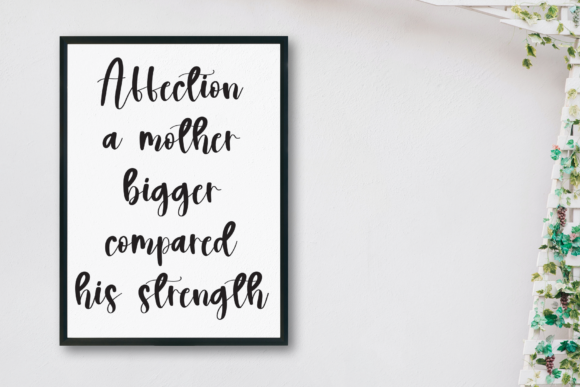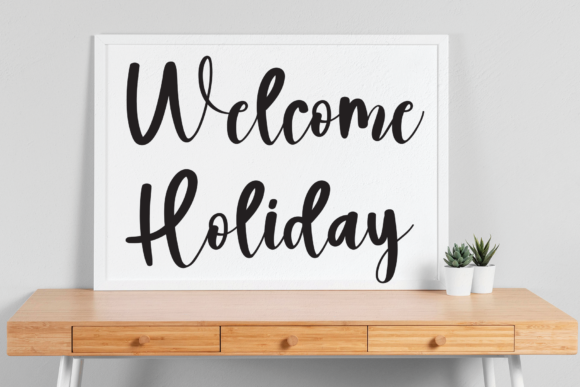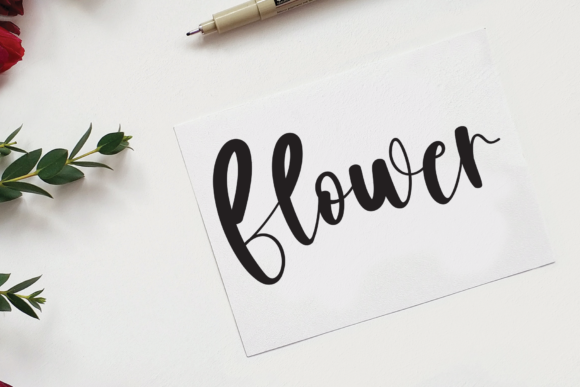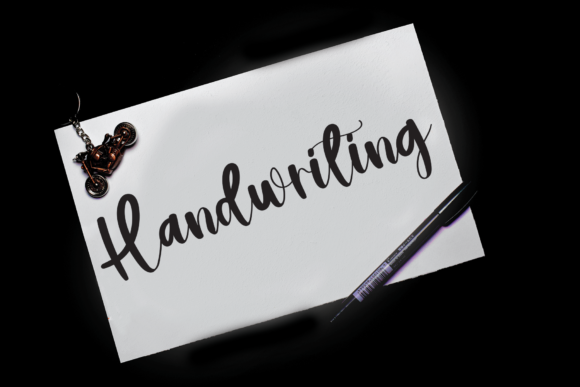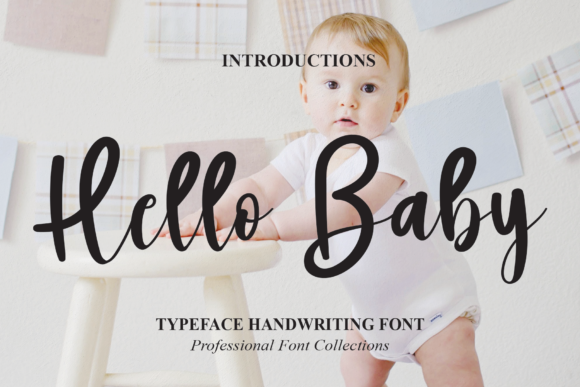
Hello Baby Font: The Perfect Choice for Elegant Designs
Hello Baby Font is a unique and elegant handwritten font that has captured the hearts of designers and crafters alike. Its beautiful, flowing script makes it an ideal choice for a variety of designs requiring a personalized style, such as wedding invitations, thank you cards, weddings, greeting cards, logos, and more.
What Makes Hello Baby Font So Special?
Hello Baby Font stands out from other fonts due to its distinctive handwritten style, which exudes elegance and sophistication. The font’s unique characteristics make it perfect for designs that require a personal touch, such as:
- Wedding invitations: Add a touch of romance and whimsy to your wedding invitations with Hello Baby Font.
- Thank you cards: Express your gratitude in style with this beautiful font.
- Greeting cards: Create stunning greeting cards for special occasions like birthdays, anniversaries, and holidays.
- Logos: Use Hello Baby Font to create a unique and memorable logo for your business or brand.
Key Features of Hello Baby Font
Hello Baby Font comes with a range of features that make it a versatile and practical choice for designers and crafters. Some of its key features include:
- Handwritten style: The font’s handwritten style gives it a personal and elegant feel.
- Unique characters: Hello Baby Font includes a range of unique characters, such as swashes and ligatures, to add a touch of whimsy to your designs.
- Multilingual support: The font supports multiple languages, making it a great choice for designers working with international clients.
Tips for Using Hello Baby Font
To get the most out of Hello Baby Font, here are some tips to keep in mind:
- Pair it with other fonts: Combine Hello Baby Font with other fonts to create a unique and visually appealing design.
- Experiment with colors: Try out different colors and textures to add depth and interest to your designs.
- Use it sparingly: Use Hello Baby Font sparingly to create a sense of elegance and sophistication.
- Play with swashes: Take advantage of the font’s swashes and ligatures to add a touch of whimsy to your designs.
Why Designers and Crafters Love Hello Baby Font
Hello Baby Font has become a favorite among designers and crafters due to its versatility, elegance, and ease of use. Here are some reasons why:
- Time-saving: The font’s elegant style saves designers and crafters time and effort, as it eliminates the need to create custom lettering from scratch.
- Professional results: Hello Baby Font produces professional-looking results, making it perfect for commercial and personal projects.
- Customization: The font’s unique characters and swashes allow designers and crafters to add a personal touch to their designs.
Hello Baby Font is a beautiful and elegant handwritten font that is perfect for designers and crafters looking to add a personal touch to their designs. Its unique style, versatility, and ease of use make it an ideal choice for a range of projects, from wedding invitations to logos. With its range of features, tips for use, and benefits, Hello Baby Font is a must-have for anyone looking to create stunning designs.